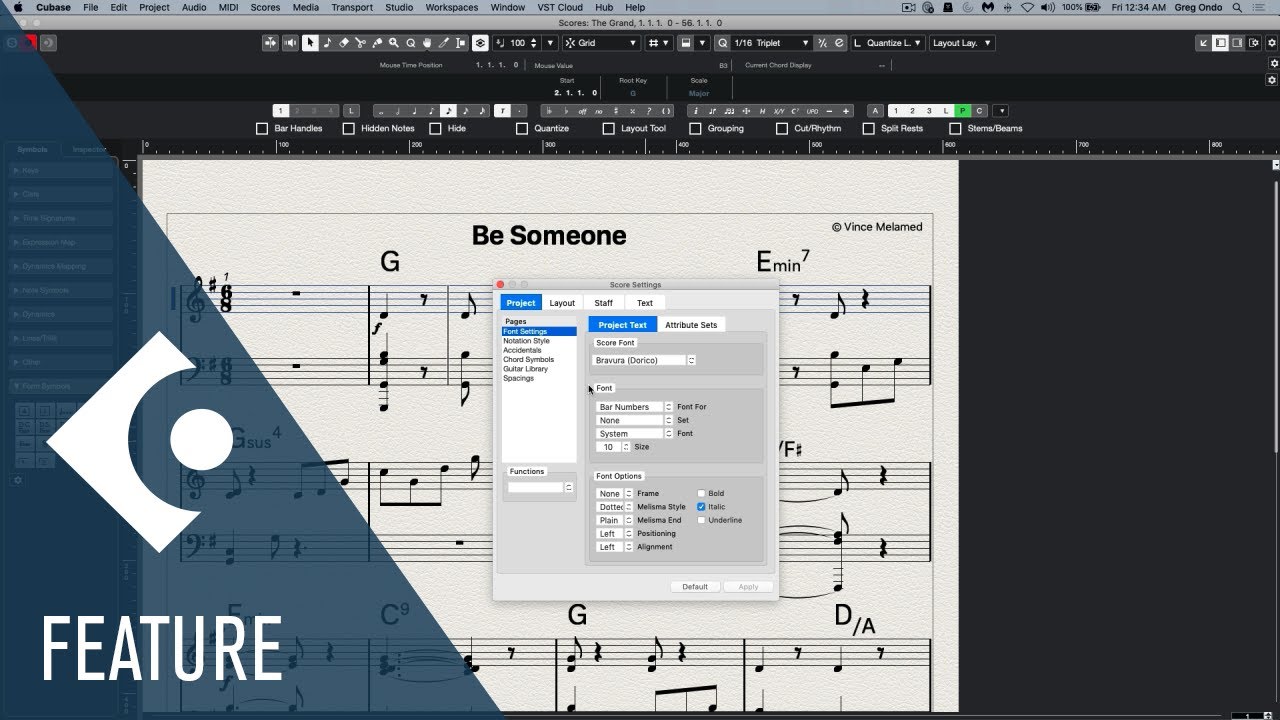
Fonts, microtonal accidentals
I see there are some interesting font sets (used for ‘text’, ‘lyrics’, etc in the score window) like “Steinberg Notat Classical” (see image). When you type letters and numbers, it actually “prints” musical symbols instead on numbers and letters (like wingdings font).
I was hoping (praying) that I might be able to find a font set that has microtonal accidental symbols? Or is there a way to make a font set with them, and import them into Cubase? (note: The “user symbol” section won’t work for my purposes for a few specific reasons).
Cubase only has regular western style accidentals.
But you can cobble together the accidentals you want. There are many fonts with microtone symbols out there, the best is the Bravura font, it’s based on SMuFL, a standard developed by the Dorico team and others, it comes with Cubase 11, and Dorico. It contains approx. one gazillion accidental symbols.
It will not be an actual accidental as far as Cubase is concerned, just a graphic element. You would simply use plain text on the Notation Layer. There are also other ways, beyond the scope of this post…
Create a Font Set like the one in the attached image, and find the accidental you want in this document, starting on page 98 (there are 40 pages of accidentals! From Johnston style to Helmholtz to Turkish etc., etc., etc):
The easiest thing to do would be to copy the accidental from the pdf and paste it right into the text field in Cubase.
Tremendous! I copied a few microtonal symbols into the “Words” section of the inspector (as custom accidentals). As you indicated, the Bravura font allows me to actually see the pasted symbol (other fonts just show a blank space). I wouldn’t have figured that out without your help!
A couple other questions, in Cubase 11 how are the smufl fonts loaded (I’m currently on 10.5)?
In 11, in the Score Settings, would I select “Dorico Bravura” as the “Score Font” and then have all the different options under “Font”? Would those font options (in Score Settings, usually Arial, etc.) show up with the names in the PDF (like “U+E280–U+E28F”, etc)? If so I assume that a quarter-tone symbol, might show up by typing a certain qwerty letter or something? If so, I guess that I’d have to load different “fonts” if I needed symbols from different “U+E…” font/accidentals sets?
A couple other questions, in Cubase 11 how are the smufl fonts loaded (I’m currently on 10.5)?
Bravura can be used as the native font in C11. However, that doesn’t extend to accidentals, so you would use the above method still.
As far as how to type them in, on Windows you are supposed to be able to type the code (without U+) and then hit alt-x:
e477 alt-x. But I could not get that to work in Cubase… Didn’t investigate further- I have tons of keyboard customizations so I don’t know if Cubase blocks this or I did. :confused:
Unfortunately I ran into a problem. In C10.5, using the Bravura font, the pasted microtonal symbols show up, but I have to use a very large font size to make them the same size as the usual score accidentals.
The problem is that when I place the custom-text-accidental in, the extra large area (from the large font, and the extraneous blank text space created below and above the symbol in the text area) shifts the nearby staves in the score (as it would if you move an inserted text field way above the staff… it would move the next staff above it away, to make room).
Would C11’s Dorico Bravura font have a better representation of the symbol size (thus not needing to expand the font size so much)? Are there other fonts besides Bravura (in C10.5) that would show the pasted accidental in a more size-accurate way? Any other options to paste different web based accidentals?
I think you are working in Edit mode. Does the same thing happen in Page mode? Here, no.
Page Mode?
You are correct, in Page Mode nearby staves don’t readjust their positions, but unfortunately I have to do most all of my work in Edit Mode (as it auto formats everything), but the large font is sending the staves a bit too much out of whack to work efficiently.
Any other brainstorming on how I might get around that font size problem? (other font accidentals that could added somehow, or if C11 would offer some kind of a solution?)
I would try another font.
Based on the excellent post by Steve, I made a small tutorial for a not so bad workaround in the Cubase 11 scoring section.
You need Cubase 11 installed for best results. (there is a font size difference between v11 and v10.5)
Here you go:
Are there any other fonts besides Bravura font will visually show the pasted microtonal accidentals properly? When I try others, the symbols copied from the pdf show up as random symbols (square box, etc) in Cubase (as text).
But the symbols are simply characters in a font, exactly like letters and numbers, so find a font somewhere with the characters you need.